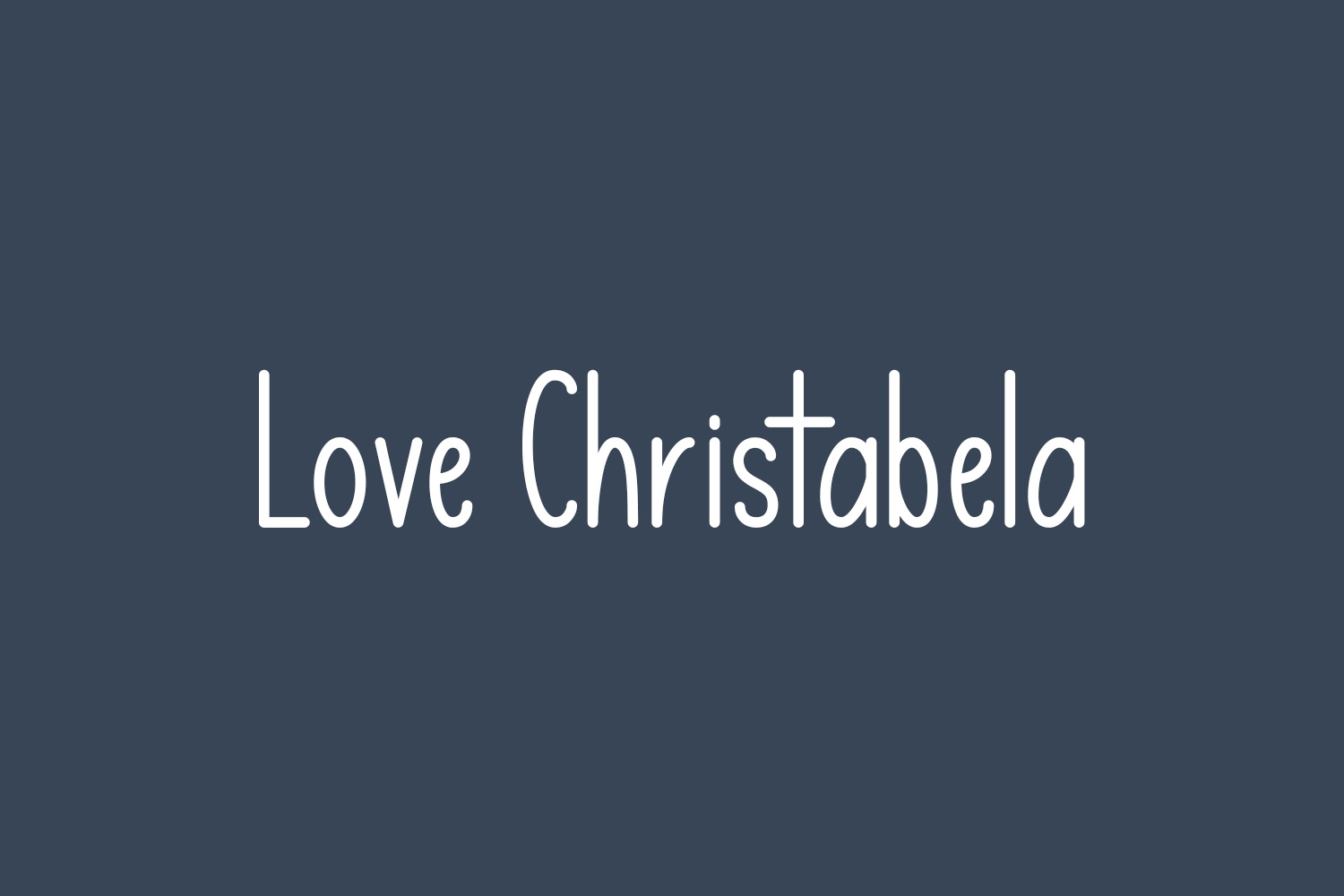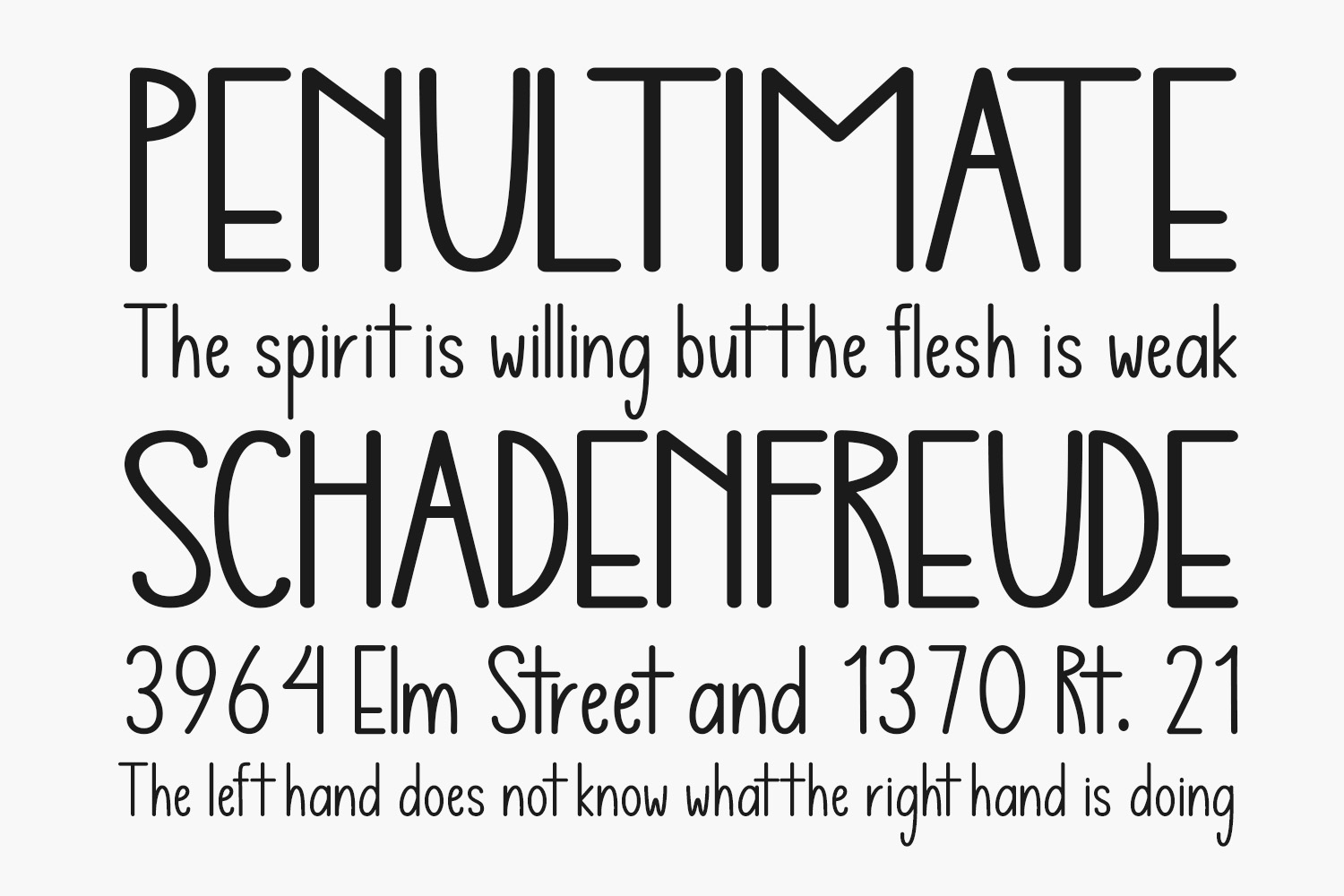
Love Christabela Free Font is a lovely, chic, and delicate duo font (sans serif and script). Fall in love with its incredibly versatile style and use it to create spectacular designs. Love Christabela Free Font was designed by Wahyu studio and is free for personal use only. Please purchase the full version for commercial use.